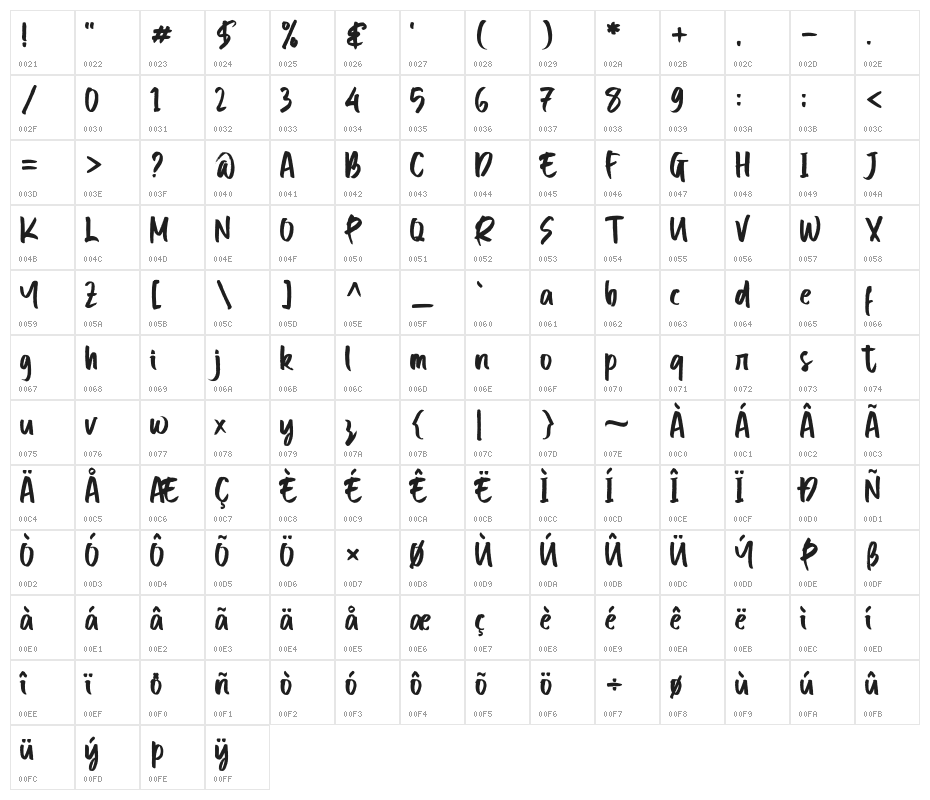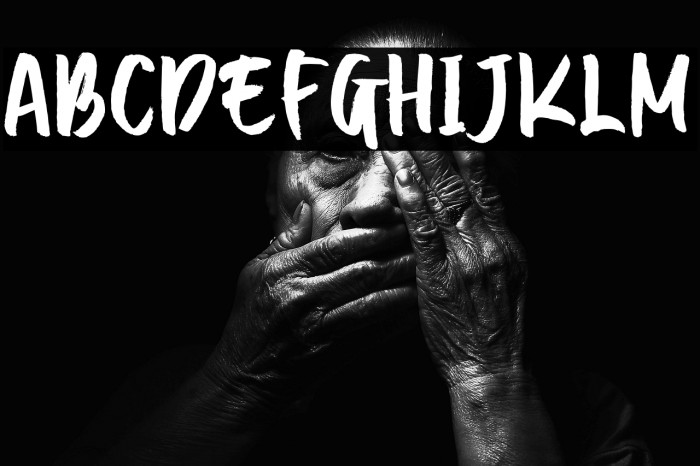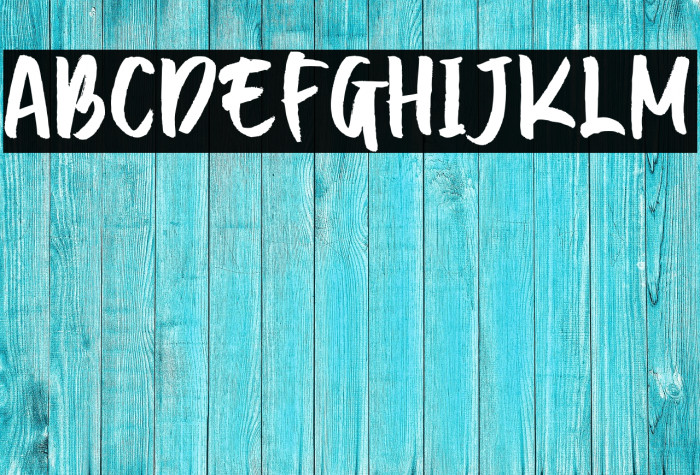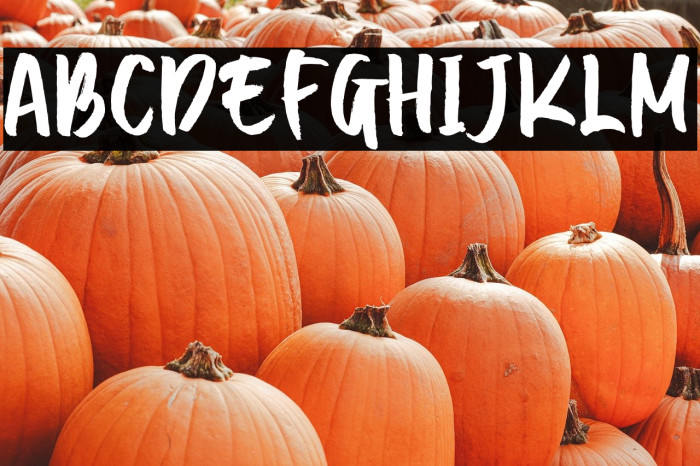
Break Types Font
Break Types Description
This font features a bold, expressive style with a hand-painted appearance. The letters have a dynamic, brush-like quality, characterized by varying stroke widths that convey a sense of movement and energy. The uppercase letters are bold and prominent, while the lowercase letters maintain a consistent style, offering a cohesive look. The numbers and special characters follow the same artistic approach, making them suitable for creative and eye-catching designs. The overall impression is one of spontaneity and artistic flair, ideal for projects that require a personal touch.
| Use Case | Logos, Headlines, Posters |
| Proposed Projects | Ideal for branding, posters, invitations, and any project requiring a creative, artistic touch. |